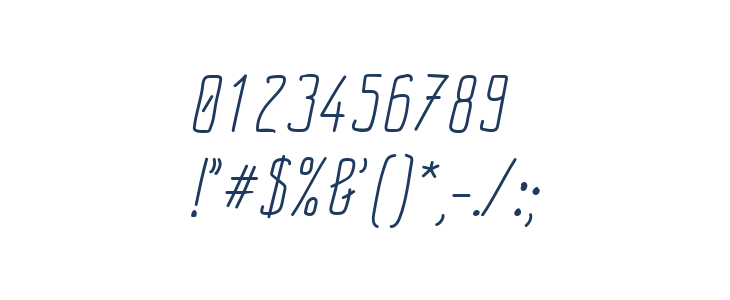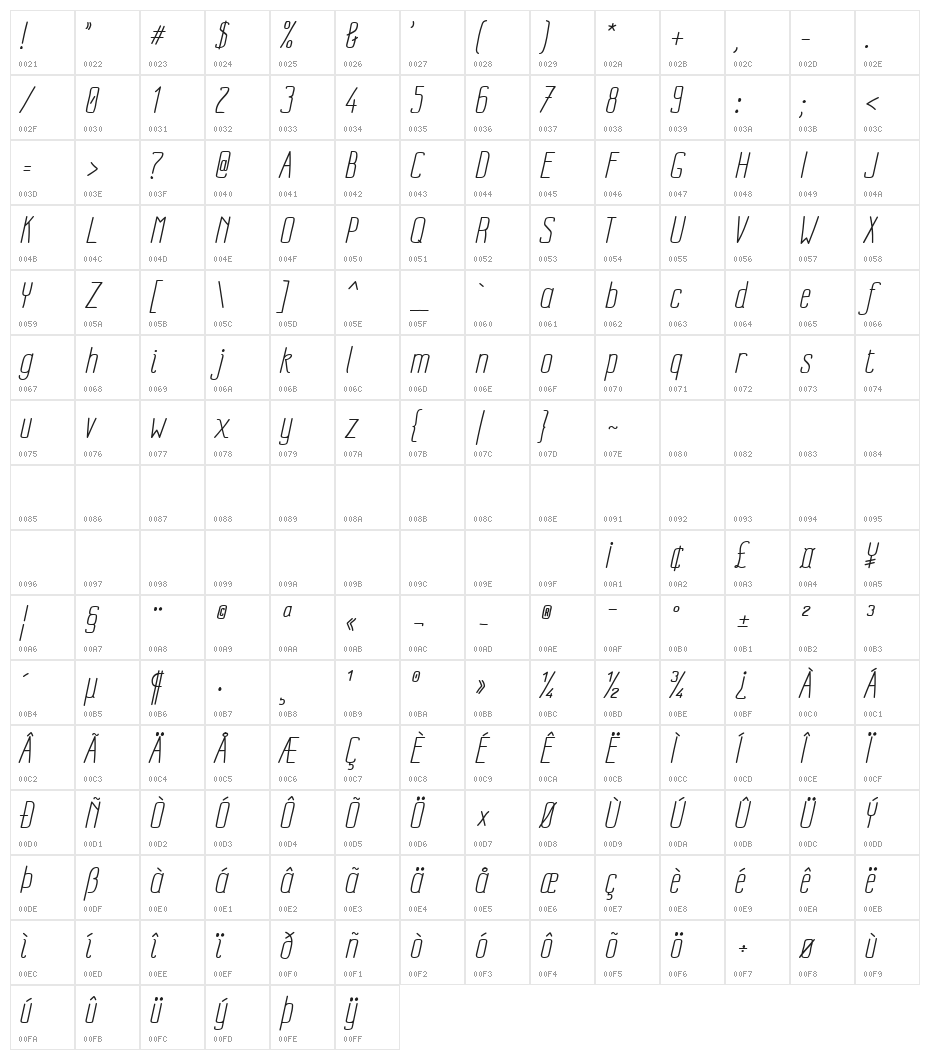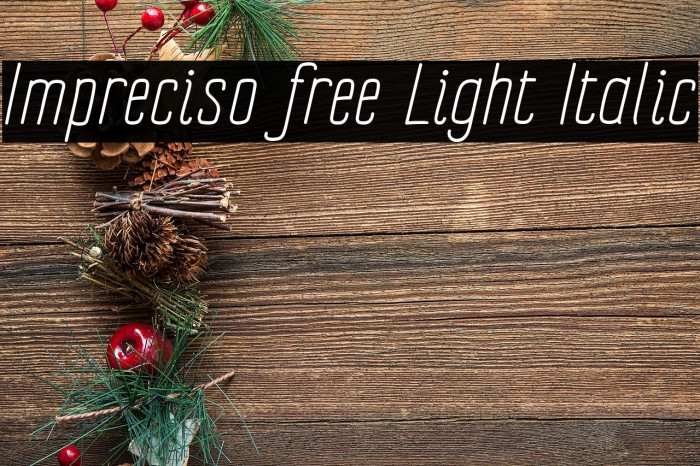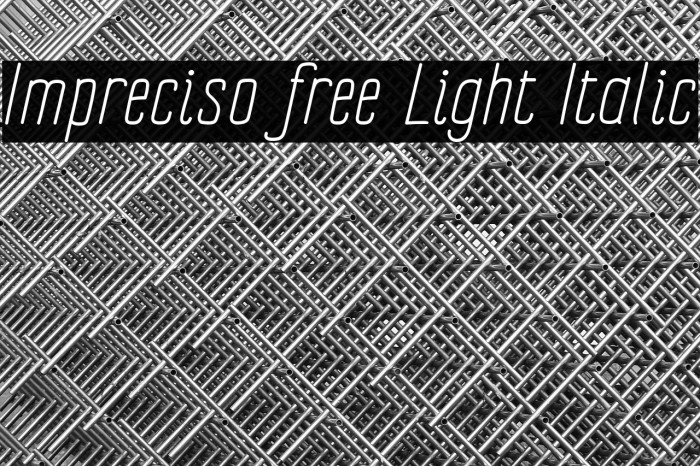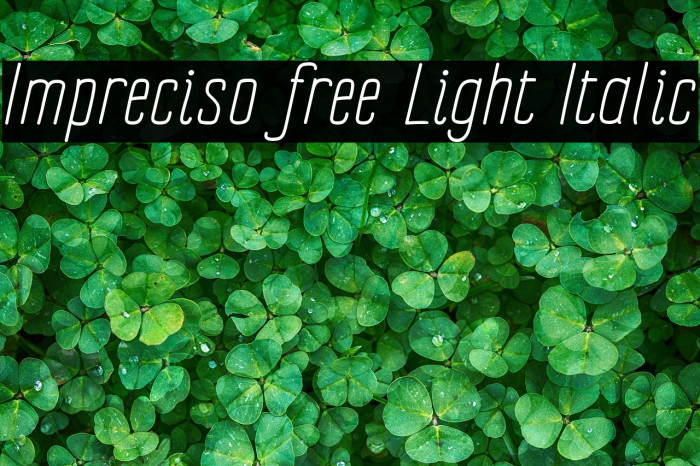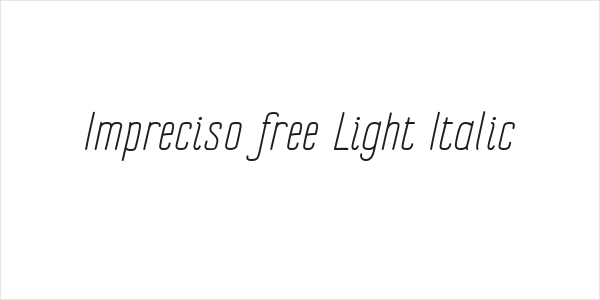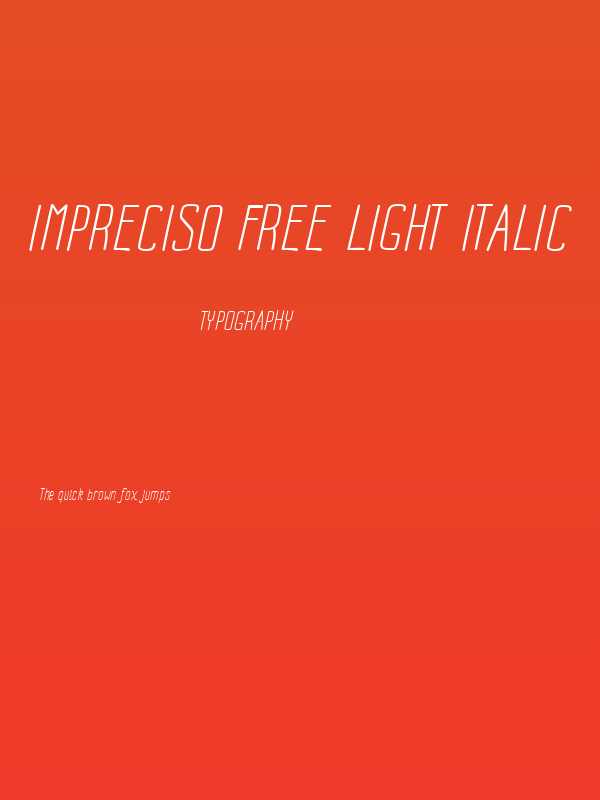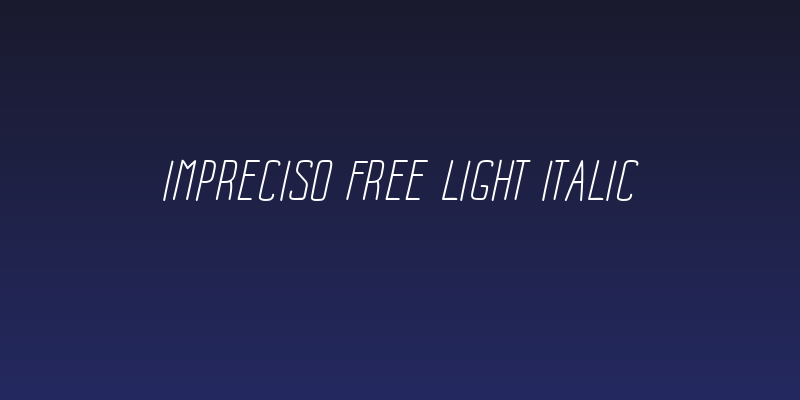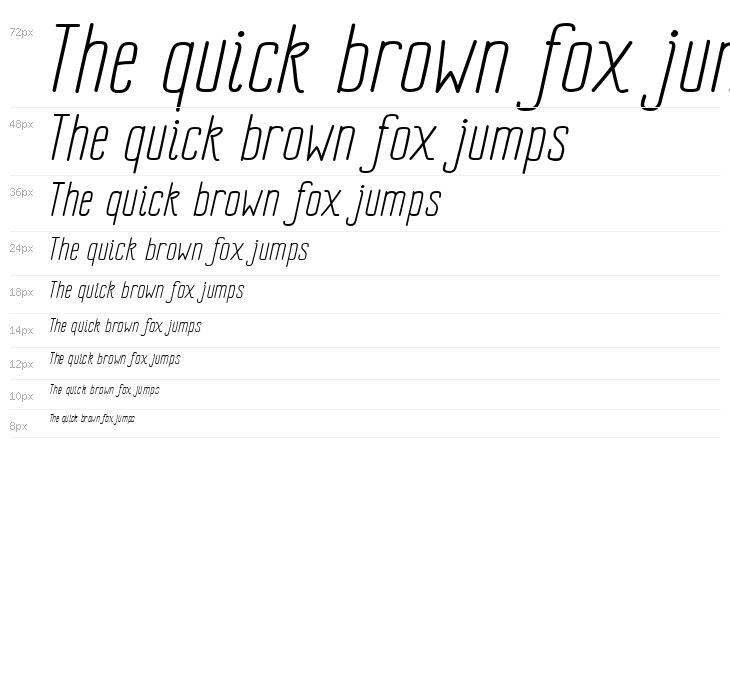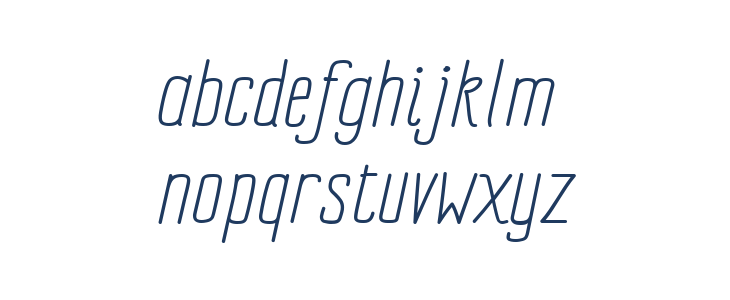
Impreciso free Light Italic Font
Impreciso free Light Italic Description
This font features a sleek, modern design with a light and airy feel. The characters are slightly elongated, giving them a tall and elegant appearance. The strokes are consistent in width, contributing to a clean and minimalist aesthetic. The italic style adds a subtle slant to the characters, enhancing the dynamic and fluid look. The font maintains a uniform character spacing, ensuring readability while preserving its stylish appeal. It includes a full set of uppercase and lowercase letters, numerals, and a variety of special characters, making it versatile for various design needs.